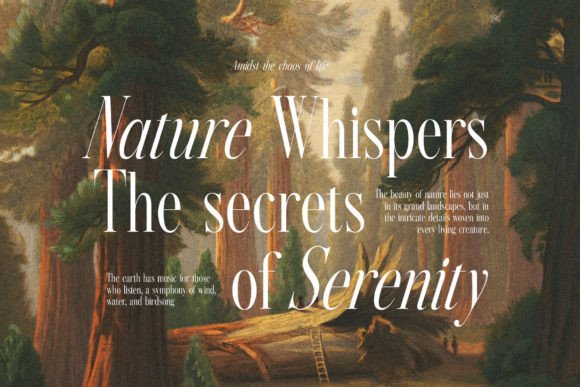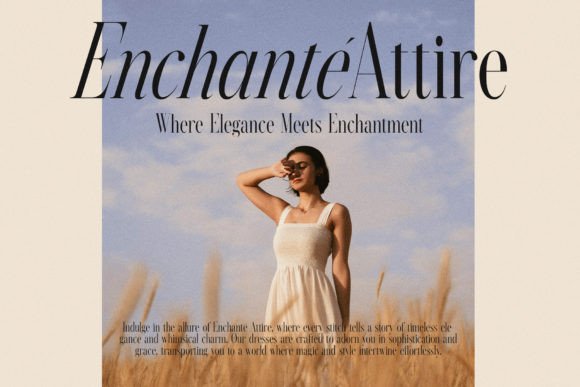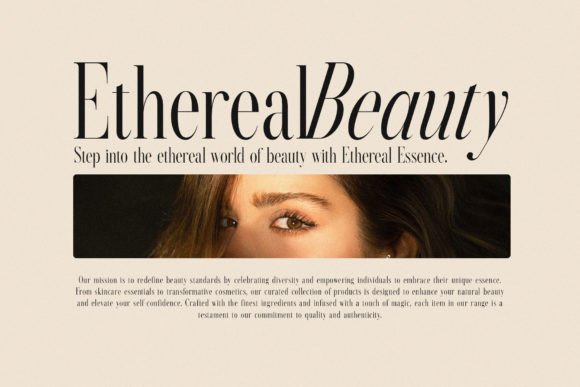
Introduction to Sebastian Moreta Font
Sebastian Moreta Elegant Serif Font is a modern font that comes with both regular and italic styles.
The blend of regular and italic styles becomes a perfect combination Even though it doesn’t offer special ligature, this font emphasizes elegance and sophistication.
Sebastian Moreta Font offers exceptional quality and versatility, making it a valuable addition to your design toolkit. Whether you’re creating for personal projects or commercial use, Sebastian Moreta Font delivers professional results.